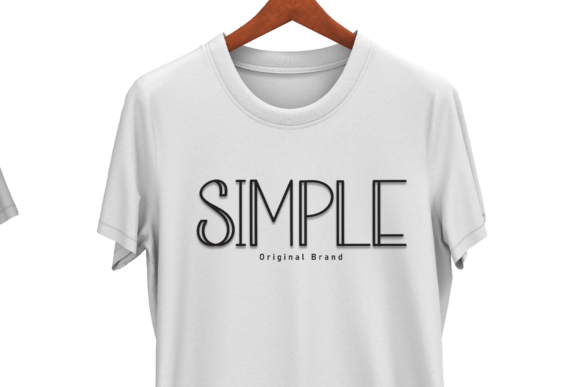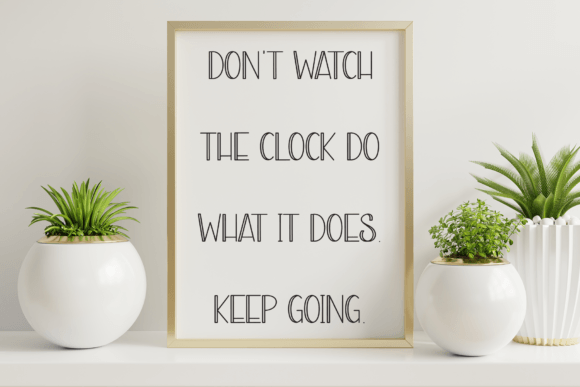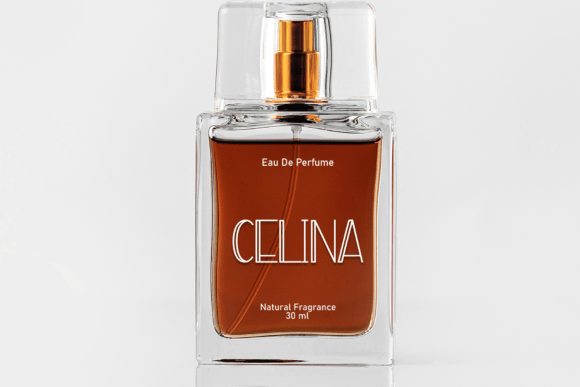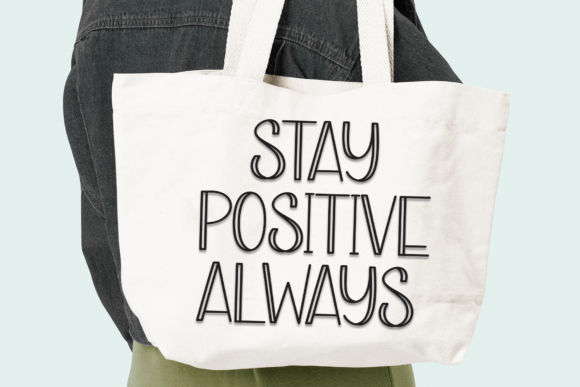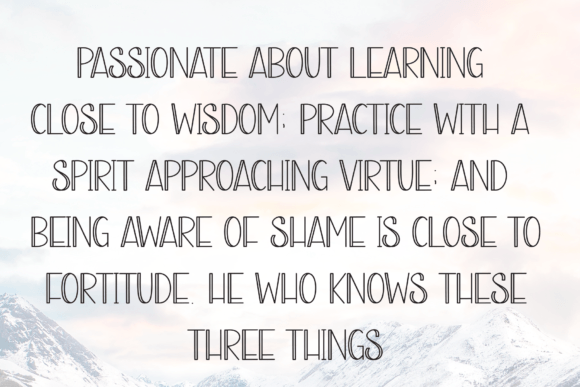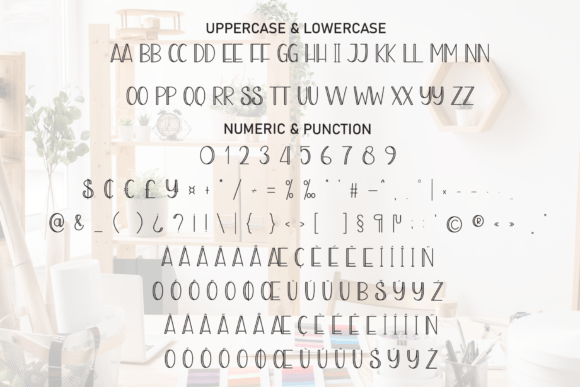
Introduction to Home Creative Font
Have you ever stumbled upon a font that perfectly captures the essence of a creative project? For me, it was the moment I discovered the Home Creative Font – a fun and playful display font that instantly elevates any design. The moment I saw it, I knew I had to share it with fellow designers who crave high-quality, unique design resources.
With its warm and inviting feel, the Home Creative Font is perfect for designs related to home, family, or creativity. Whether you’re working on a branding project for a home decor business or a creative agency, this font will make your projects stand out. The best part? It’s available for free download, allowing designers to experiment with it without any constraints.
In this article, we’ll dive into the world of the Home Creative Font, exploring its features, usage, and why it’s a valuable addition to any designer’s toolkit.
Key Features of Home Creative Font
- High-quality design resource suitable for various creative projects, including logos, brochures, and business cards.
- Features a transparent background, making it easy to use as a design element in various creative projects.
- Unique characteristics include a modern and elegant design, perfect for creating a professional and creative look.
- Perfect for designers and artists working on various creative projects, including digital art, graphic design, and web design.
Honest Review: Home Creative Font
As a designer, I’m always on the lookout for high-quality design resources that can elevate my creative projects. The Home Creative Font is one such resource that caught my attention.
What works well: ✨ The font is incredibly versatile, suitable for both digital and print-based designs. It comes with a transparent background, making it easy to customize and use in various design scenarios. The font family includes multiple weights and styles, providing ample options for designers to choose from.
What doesn’t work well: ⚠️ The font library could be expanded to include more characters and glyphs. Additionally, some users may find the font’s aesthetic to be a bit too minimalist for their taste.
Here are some of the key features of the Home Creative Font:
- High-quality design with a transparent background
- Suitable for digital and print-based designs
- Includes multiple weights and styles
Overall, the Home Creative Font is a solid addition to any designer’s toolkit. While it may have some limitations, its versatility and high-quality design make it a valuable resource for creative projects.
The Home Creative Font is a versatile and high-quality font designed for creative projects. It’s available for free download and features a transparent background, making it easy to use in various design applications.
– Use Home Creative Font to create stunning graphics and designs for social media, marketing materials, and more.
– Apply Home Creative Font to your designs for a unique and creative look.
– Use Home Creative Font to add a touch of creativity to your presentations and documents.
Home Creative Font is perfect for a variety of creative projects, including:
- Social media graphics and posts.
- Marketing materials, such as brochures and flyers.
- P
Q: Is Home Creative Font a high-quality design resource?
A: Yes, Home Creative Font is a high-quality design resource, carefully crafted to provide a unique and creative touch to your projects. With its clean and elegant design, it’s perfect for a wide range of applications, from branding and marketing materials to digital products and websites.